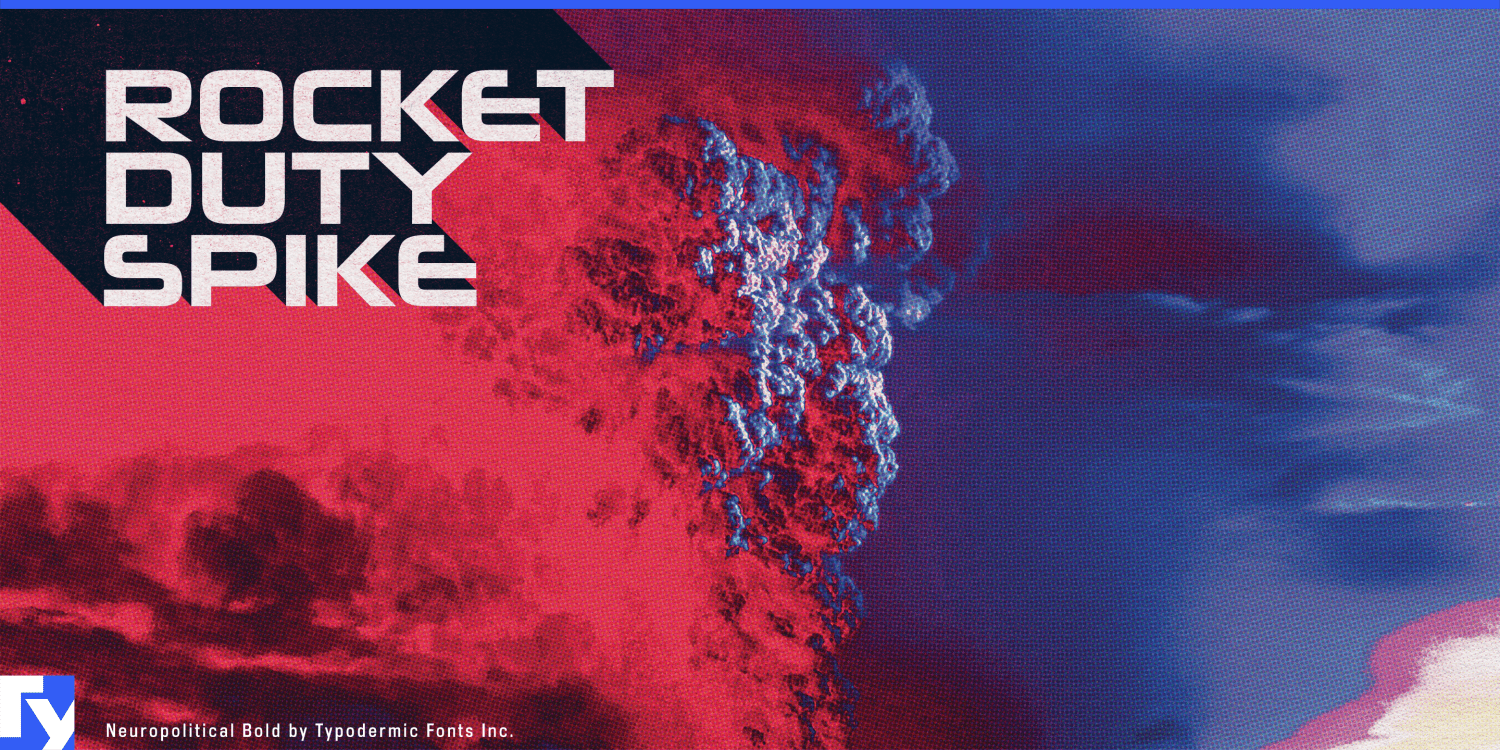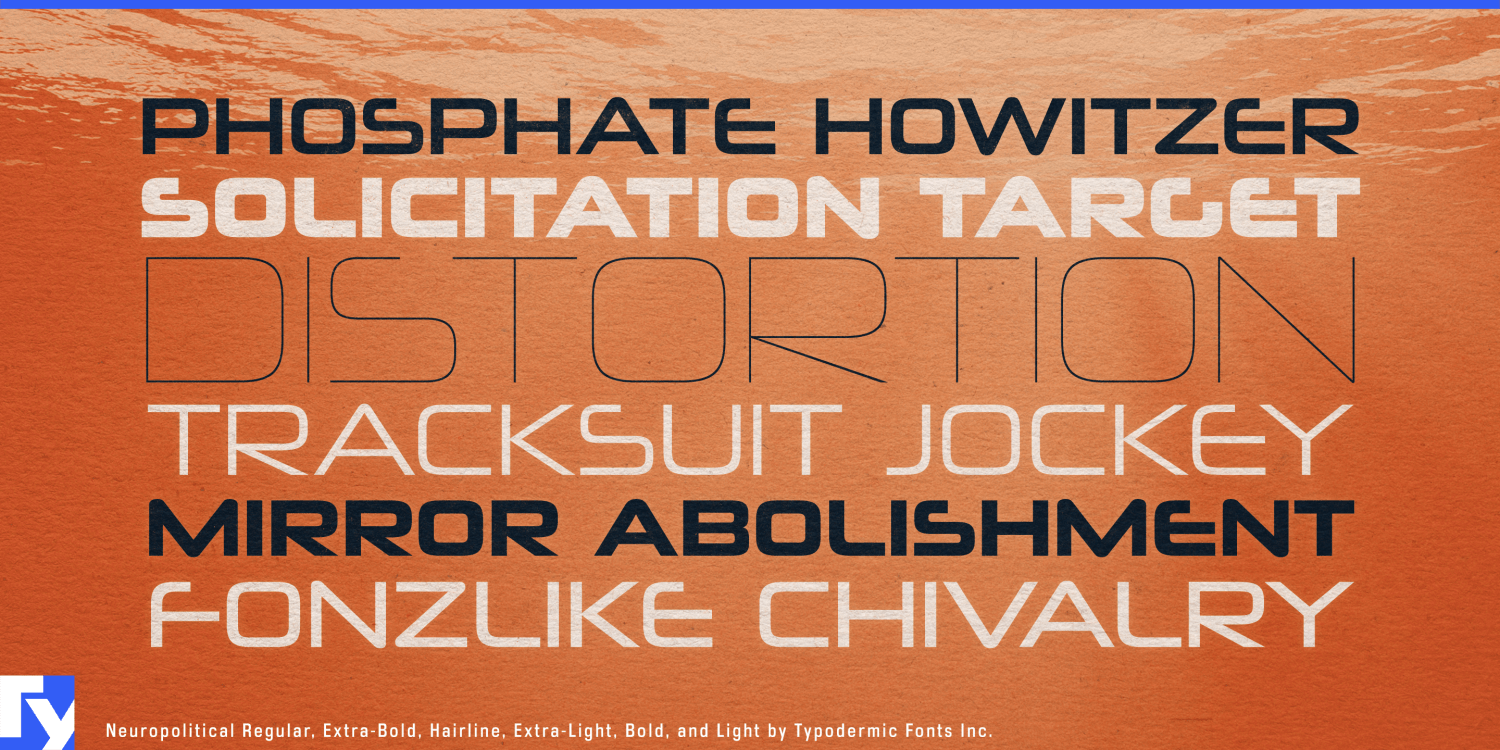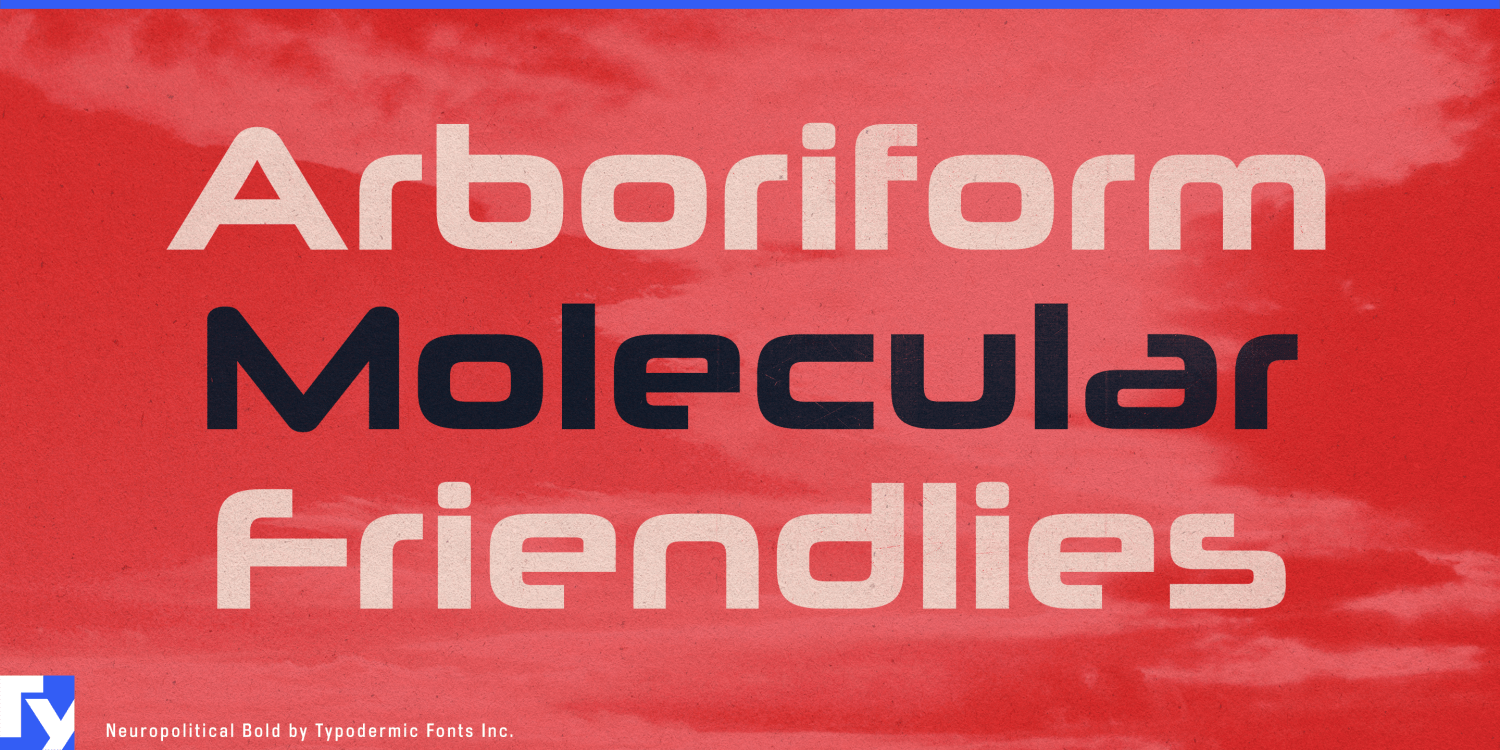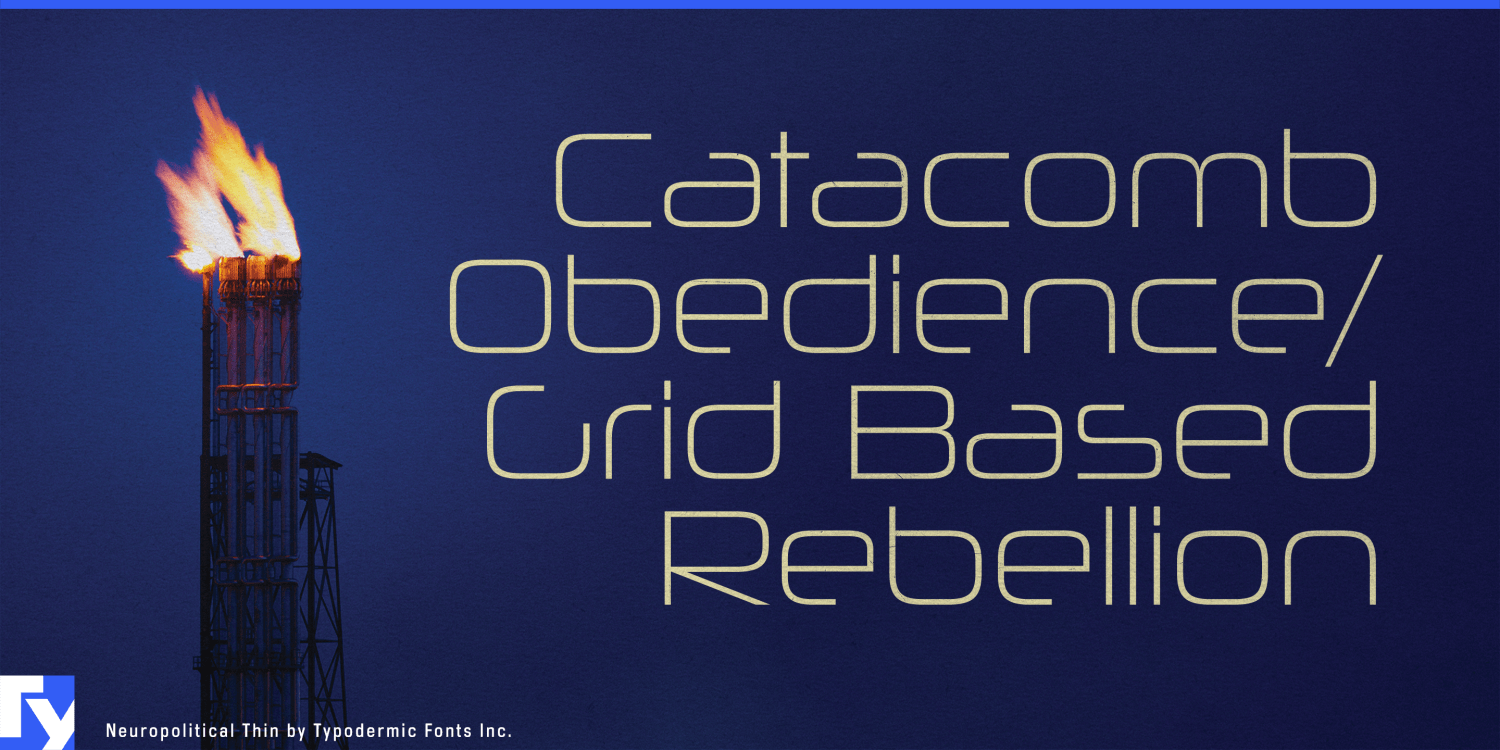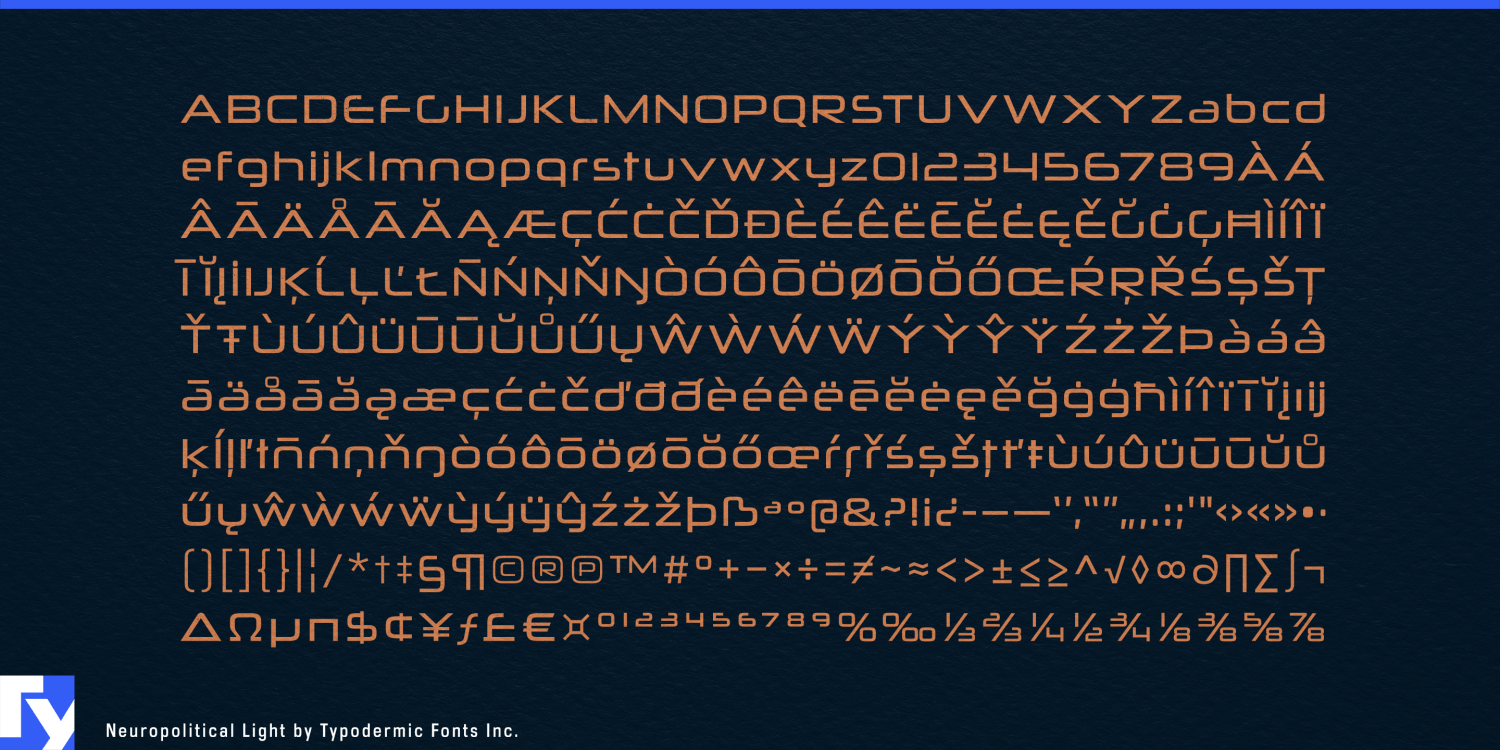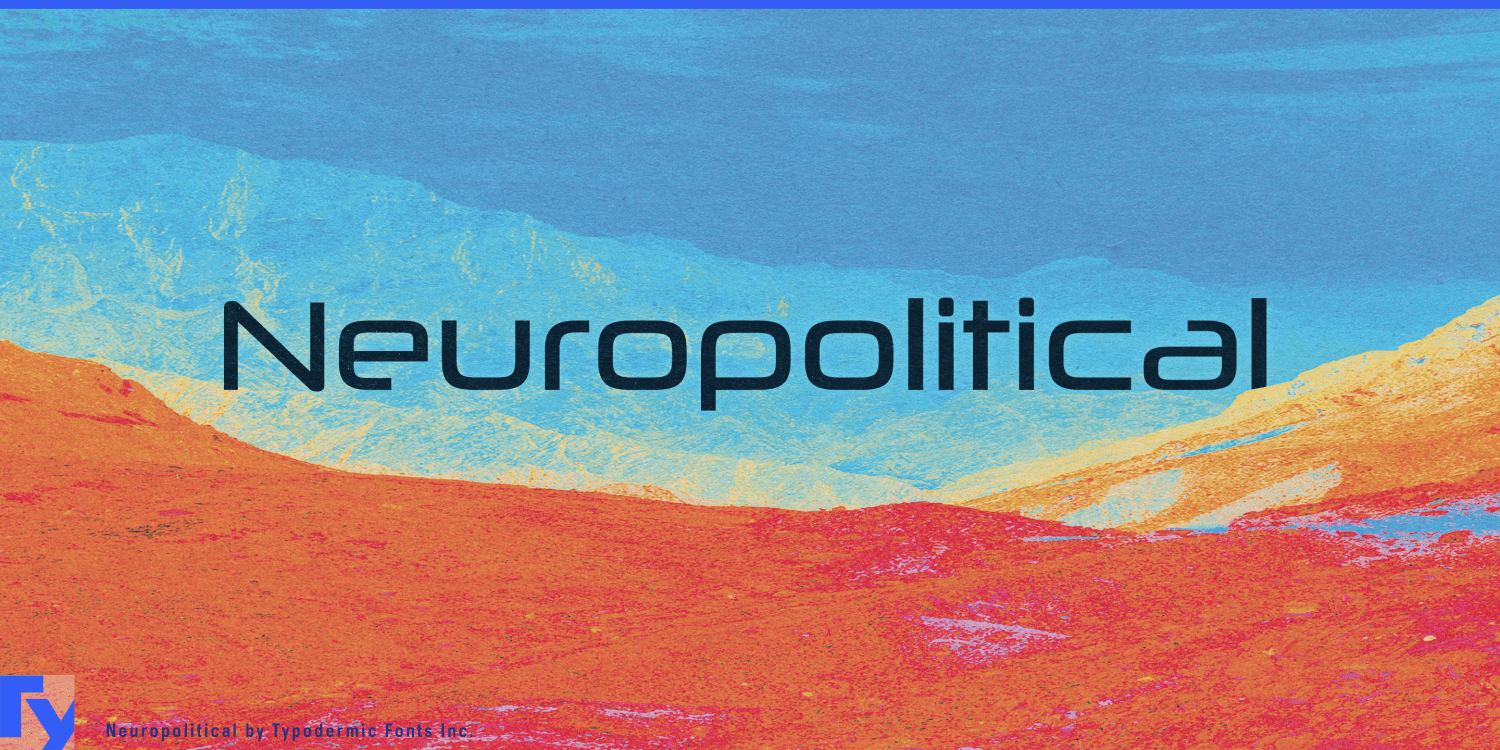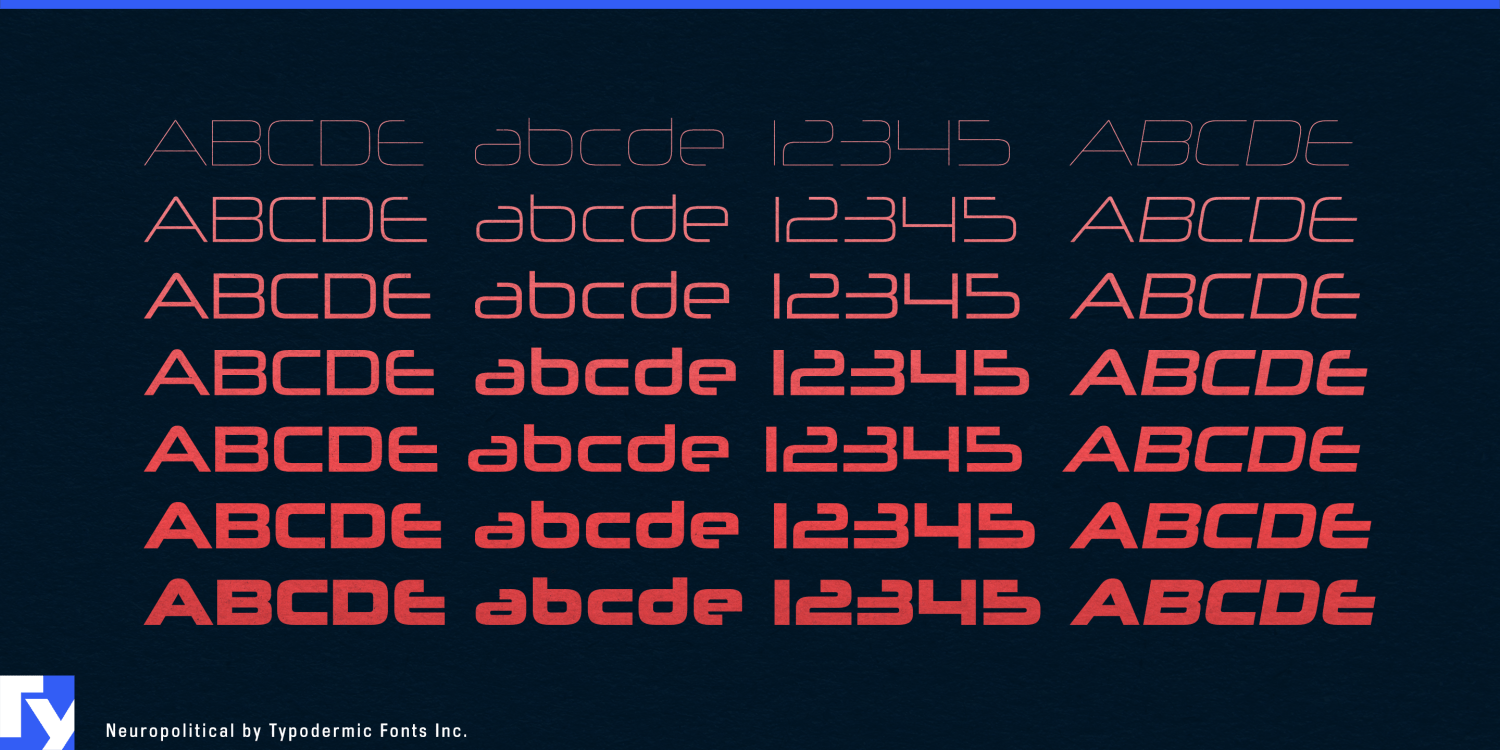
About Neuropolitical
In the ever-evolving landscape of graphic design, certain typefaces emerge as game-changers. Neuropolitical is one such revolutionary force, redefining the boundaries of ultramodern typography with its bold, industrial aesthetic. Neuropolitical is a visual…